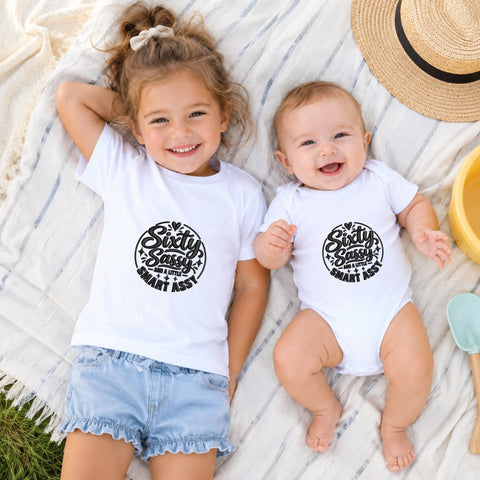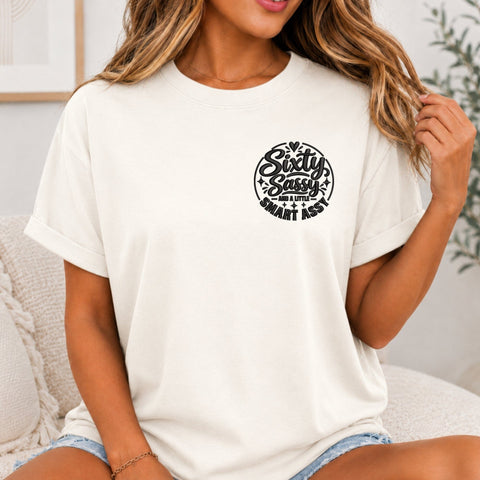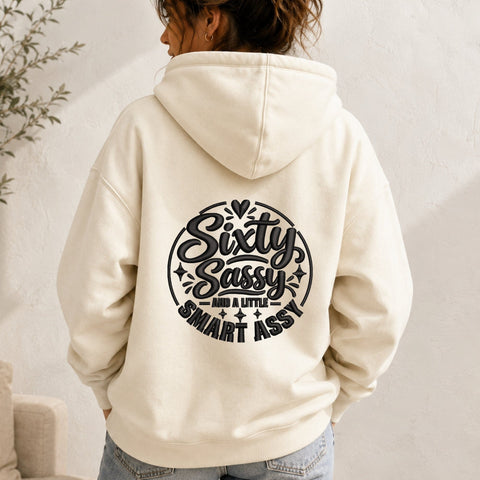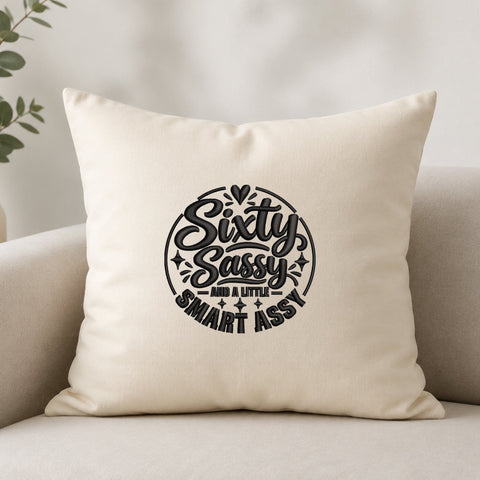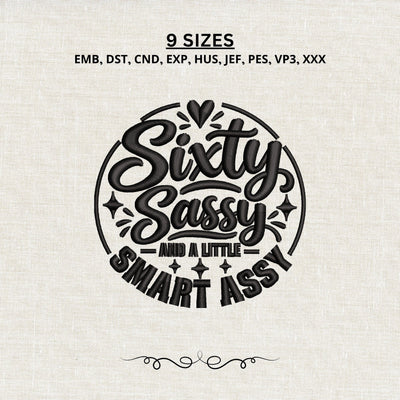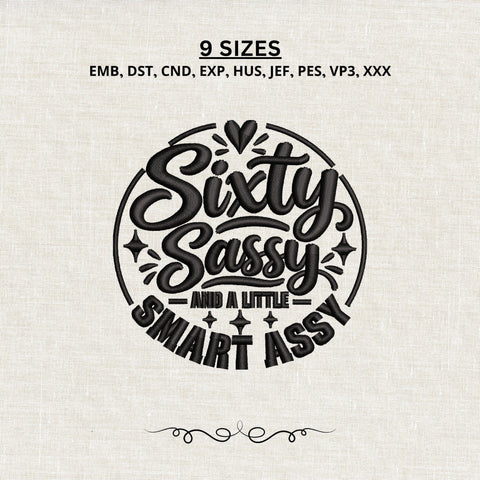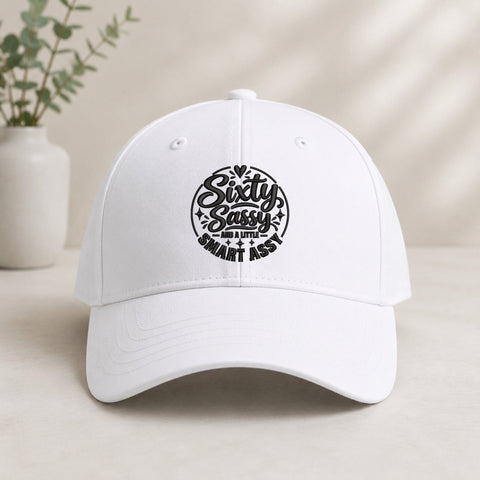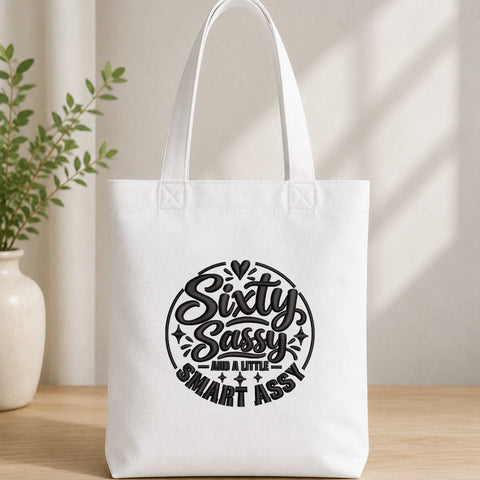
Sixty Sassy and a Little Smart Assy Embroidery Design – Funny 60th Birthday Machine Embroidery File
Celebrate turning 60 with attitude using this “Sixty Sassy and a Little Smart Assy” Embroidery Design. Featuring bold script lettering, playful decorative accents, hearts, stars, and a fun circular composition, this design is perfect for creating a memorable and humorous 60th birthday gift.